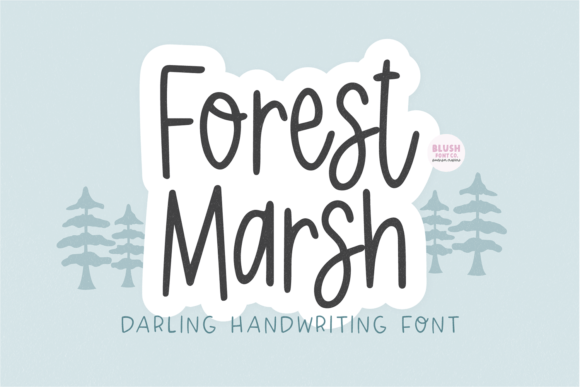
Introducing Forest Marsh Font, the ultimate script font that will breathe life into your digital planner! Created by blushfontco, this adorable handwriting font is specifically designed to captivate and engage users who are seeking the best font for their digital planner.
With Forest Marsh, your social media posts will sparkle and your crafty projects will come alive with a touch of whimsy. This font exudes a charming and playful vibe that is sure to grab attention and leave a lasting impression.
Crafted with love and attention to detail, Forest Marsh is not just a font, but a creative tool that will elevate your branding efforts. Whether you're designing a logo, creating crafts for decor, or sending out invitations, this font will effortlessly add a unique and personal touch to your projects.
Imagine the joy of scrolling through your digital planner adorned with the enchanting strokes of Forest Marsh. Each letter dances across the page, creating a delightful visual experience that will make you fall in love with planning all over again.
But Forest Marsh is not just about aesthetics. It's about creating an emotional connection with your audience. This font has the power to evoke feelings of warmth, happiness, and nostalgia, making your content more relatable and memorable.
Furthermore, Forest Marsh is optimized for seamless integration with various digital platforms. Its versatility allows you to effortlessly use it across different devices and applications, ensuring that your digital planner looks flawless on every screen.
Dare to stand out, dare to be different. Forest Marsh Font is here to add a touch of magic to your digital planner and beyond. Let your imagination run wild and watch as your designs come to life in the most enchanting way possible.